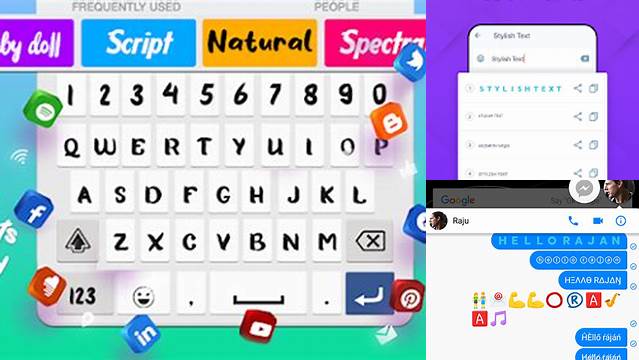
Fonts For Android & IPhone: Ultimate Style Guide
Why Bother with Custom Fonts?
Let's dive into why you should even consider changing your fonts in the first place. In this digital age, typography plays a crucial role in communication. The fonts you choose can convey emotions, set the tone, and even reflect your personality. Imagine sending a heartfelt message in a playful, bubbly font – it just wouldn't feel right, would it? Custom fonts allow you to express yourself more authentically and make your messages stand out. Think of your font as the voice of your text – it adds character and flair that default system fonts often lack. For businesses, using consistent and unique fonts across your branding, including your mobile communications, can help strengthen your brand identity. It’s all about making a lasting impression! Using different fonts helps in several ways. Firstly, it lets you inject personality and style into your messages, making them truly reflect your unique flair. Secondly, the right font can significantly improve readability, ensuring your messages are not only seen but also easily understood. Thirdly, custom fonts allow you to highlight important information, drawing attention to key points in your texts. For instance, imagine crafting a birthday message using a whimsical script font or sending a formal announcement in a clean, professional typeface. The possibilities are endless, and the impact is undeniable. By using fonts intentionally, you’re not just sending words; you’re sending a message with style and substance. So, why settle for the ordinary when you can embrace the extraordinary with custom fonts? It's time to ditch the default and dare to be different!
Fonts on Android: A World of Possibilities
Android, being the open-source operating system it is, offers a ton of flexibility when it comes to customization. This means changing fonts on your Android device is generally a straightforward process, although it can vary slightly depending on your phone's manufacturer and Android version. Most Android devices come with built-in options to change fonts directly within the settings menu. Typically, you'll find font settings under "Display" or "Personalization." Here, you can choose from a selection of pre-installed fonts or even download new ones from the Google Play Store or other sources. Many Android manufacturers, such as Samsung, Xiaomi, and OnePlus, offer their own font stores or themes that include custom fonts. This gives you an even wider range of options to choose from. However, for those who want ultimate control over their font selection, third-party apps like Fonts Keyboard (hint hint! 😉) provide a seamless way to access and apply custom fonts across your entire device. These apps often come with a vast library of fonts, categorized by style, making it easy to find the perfect font for any occasion. Some apps even allow you to create your own custom fonts or import fonts from other sources, giving you complete creative freedom. The beauty of Android is its openness, and font customization is a prime example of that. With the myriad of options available, you can truly make your Android device reflect your unique style and personality. So go ahead, explore the world of Android fonts and find the perfect fit for your digital persona!
Built-in Font Options
Many Android devices come equipped with built-in font options, making it super easy to personalize your phone without needing to download extra apps. To access these settings, usually you'll want to head over to your device's Settings app, then look for something like "Display" or "Personalization." Inside, you should find a section dedicated to fonts, where you can browse through a selection of pre-installed typefaces. These fonts are designed to work seamlessly with your device, ensuring optimal readability and a smooth user experience. One of the cool things about these built-in options is that they often allow you to adjust the font size as well. This is a handy feature for those who prefer larger text or want to make the most of their screen real estate. You can usually preview how the font will look before applying it, so you can experiment with different styles until you find one that perfectly suits your taste. Manufacturers like Samsung and Xiaomi often include their own custom font stores within their themes or settings, giving you an even wider variety to choose from. This means you can easily switch between different looks depending on your mood or the occasion. While the built-in options may not offer the same level of customization as third-party apps, they're a great starting point for anyone looking to dip their toes into the world of custom fonts. They're convenient, user-friendly, and provide a simple way to add a touch of personality to your Android device. So, if you're just starting out with font customization, be sure to explore the built-in options first – you might be surprised at what you find!
Third-Party Font Apps
Now, if you're craving even more font options and a deeper level of customization, third-party font apps are your best friends! These apps open up a whole new world of typographic possibilities, offering thousands of fonts across a wide range of styles, from elegant scripts to bold sans-serifs and everything in between. One of the biggest advantages of using third-party font apps is the sheer variety they provide. You can browse through endless options, preview how they'll look on your device, and easily apply them to your system. Many of these apps also offer advanced features, such as the ability to adjust font weight, spacing, and even create your own custom fonts. Some popular font apps include Fonts Keyboard, HiFont, and iFont, each with its own unique collection and set of features. When choosing a font app, it's important to consider factors like the size of the font library, ease of use, and compatibility with your device. You'll also want to make sure the app is reputable and doesn't contain any malware or security risks. Once you've found the perfect font app, installing and applying fonts is usually a breeze. Most apps provide step-by-step instructions and integrate seamlessly with your device's settings. With a few taps, you can transform the look and feel of your entire Android experience. Whether you're looking to add a touch of elegance, fun, or professionalism to your phone, third-party font apps have got you covered. So, if you're ready to take your font game to the next level, dive into the world of third-party apps and discover the perfect fonts to express your unique style!
Fonts on iPhone: A More Controlled Environment
Using Font Keyboard Apps
Font keyboard apps are a fantastic workaround for using custom fonts in apps that don't natively support them on iOS. These apps essentially replace your default keyboard with a keyboard that includes a variety of stylish fonts. This allows you to type in your desired font and then copy and paste the text into any app, whether it's a social media platform, messaging app, or email client. Using a font keyboard app is super easy. First, download and install a font keyboard app from the App Store, such as Fonts Keyboard (again, ahem 😉), FancyKey, or Kika Keyboard. Once installed, you'll need to enable the keyboard in your iPhone's settings. To do this, go to Settings > General > Keyboard > Keyboards and tap "Add New Keyboard". Select the font keyboard app you just installed and then toggle the "Allow Full Access" option. This is necessary for the keyboard app to access the fonts and function properly. Now, when you're typing in any app, you can switch to the font keyboard by tapping the globe icon on your keyboard. This will bring up the font keyboard interface, where you can browse through the available fonts and select the one you want to use. Once you've selected a font, simply type your text, and it will appear in the chosen font. You can then copy and paste the text into the app you're using. Font keyboard apps are a versatile solution for adding custom fonts to your iPhone experience. They allow you to express your style and creativity in a wider range of apps, even those that don't support custom fonts directly. So, if you're looking to spice up your texts, social media posts, and other communications, a font keyboard app is definitely worth checking out!
Finding the Perfect Font
With so many fonts out there, how do you even begin to choose the perfect one? It can feel overwhelming, but don't worry! Here are a few tips to help you narrow down your options. First, consider the purpose of your font. Are you using it for personal messages, professional documents, or social media posts? The occasion will influence the type of font you choose. For personal messages, you might want something playful and casual, while professional documents might call for a more formal and legible font. Second, think about the tone you want to convey. Fonts have personalities, just like people! Some fonts are elegant and sophisticated, while others are fun and quirky. Choose a font that aligns with the message you're trying to send. Third, consider readability. While it's fun to experiment with fancy fonts, make sure your text is still easy to read. Avoid fonts that are too thin, too decorative, or have too much spacing between letters. A font that looks beautiful but is difficult to read defeats the purpose. Fourth, experiment and try different things! Font apps often allow you to preview fonts before installing them, so take advantage of this feature. Try out different fonts in different contexts to see what works best for you. Don't be afraid to mix and match fonts, but be mindful of creating a cohesive look. Finally, draw inspiration from design resources and websites. Look at how professional designers use fonts in their work and see if you can incorporate similar styles into your own font choices. Remember, finding the perfect font is a personal journey. What works for one person might not work for another. So, take your time, explore your options, and have fun with it! The perfect font is out there waiting to be discovered, and it will help you express your unique style and make your messages truly shine.
Conclusion: Embrace the Fontastic World!
So there you have it! A comprehensive guide to fonts for Android and iPhone. Whether you're a seasoned font enthusiast or just starting to explore the world of typography, we hope this article has given you the knowledge and inspiration to spice up your text game. Remember, fonts are a powerful tool for self-expression, so don't be afraid to experiment and find the styles that resonate with you. With the vast array of options available on both Android and iPhone, there's a font out there for every personality and every occasion. So go forth, embrace the fontastic world, and let your text shine! From the flexibility of Android's open-source platform to the curated experience of iOS, the possibilities for typographic expression are vast and varied. Whether you're crafting a heartfelt message to a loved one, designing a professional document, or simply adding a personal touch to your social media posts, the right font can make all the difference. By understanding the nuances of font selection and installation on both Android and iPhone, you can unlock a new level of creativity and personalization in your digital communications. So, don't settle for the ordinary – embrace the extraordinary and let your fonts speak volumes!